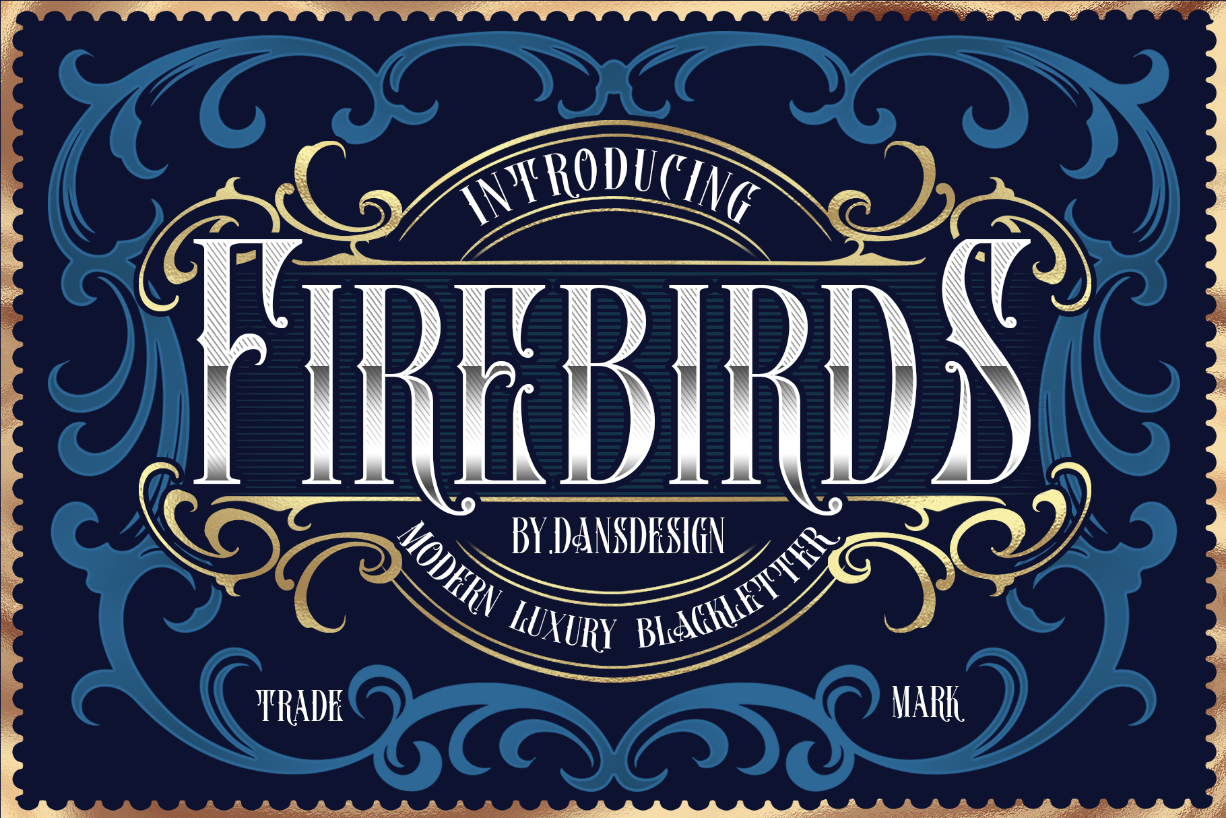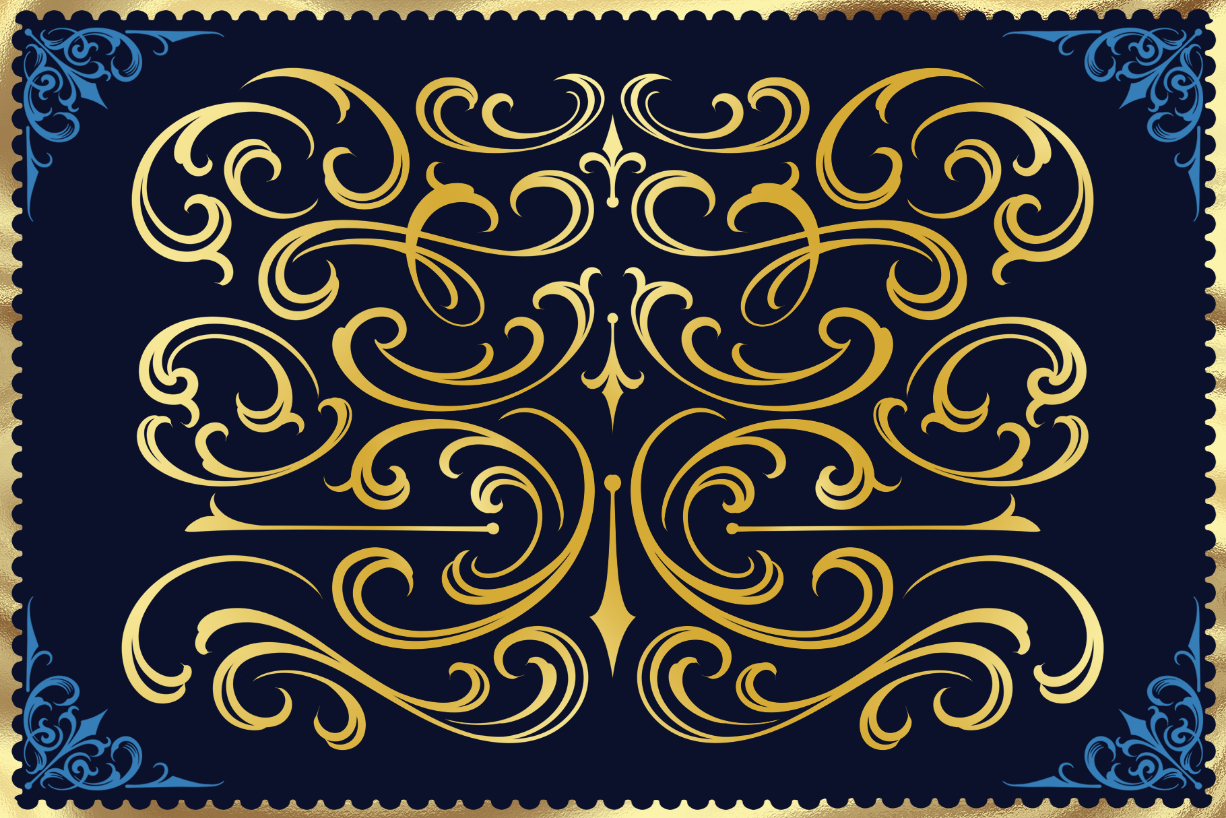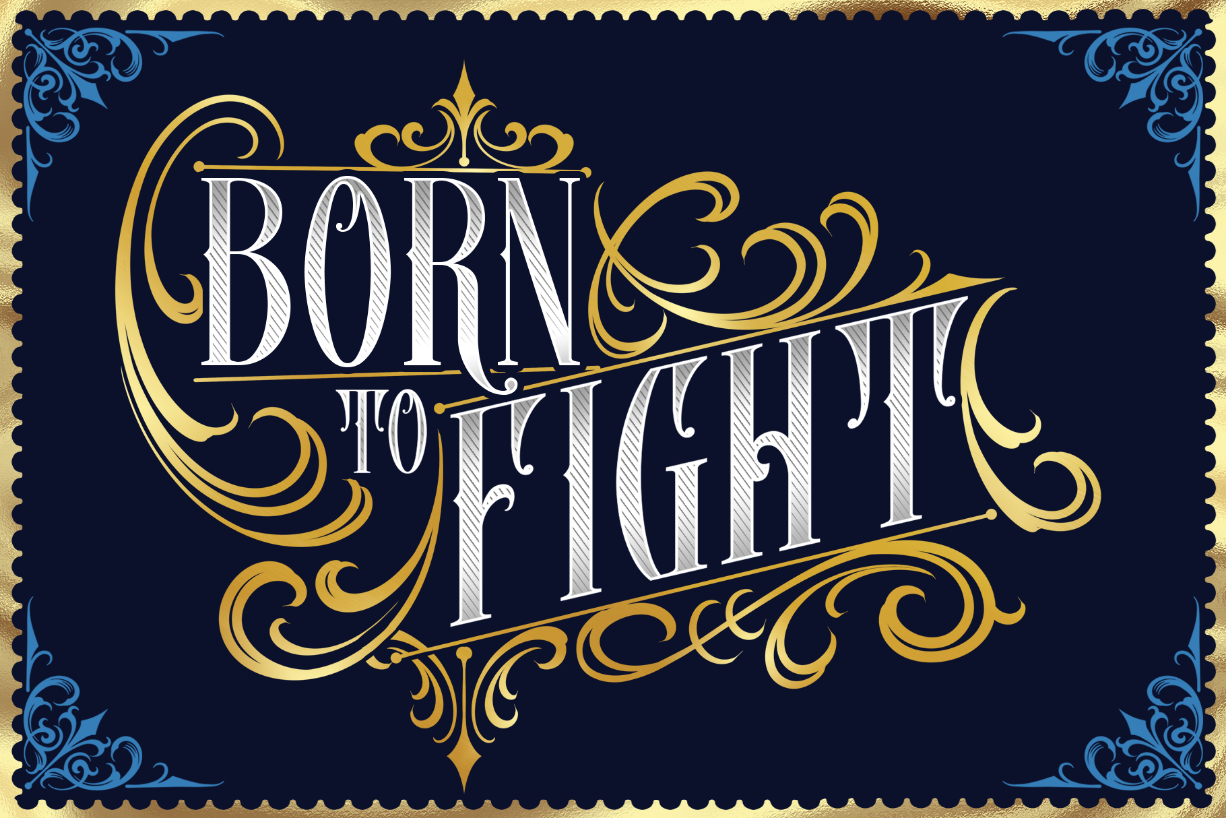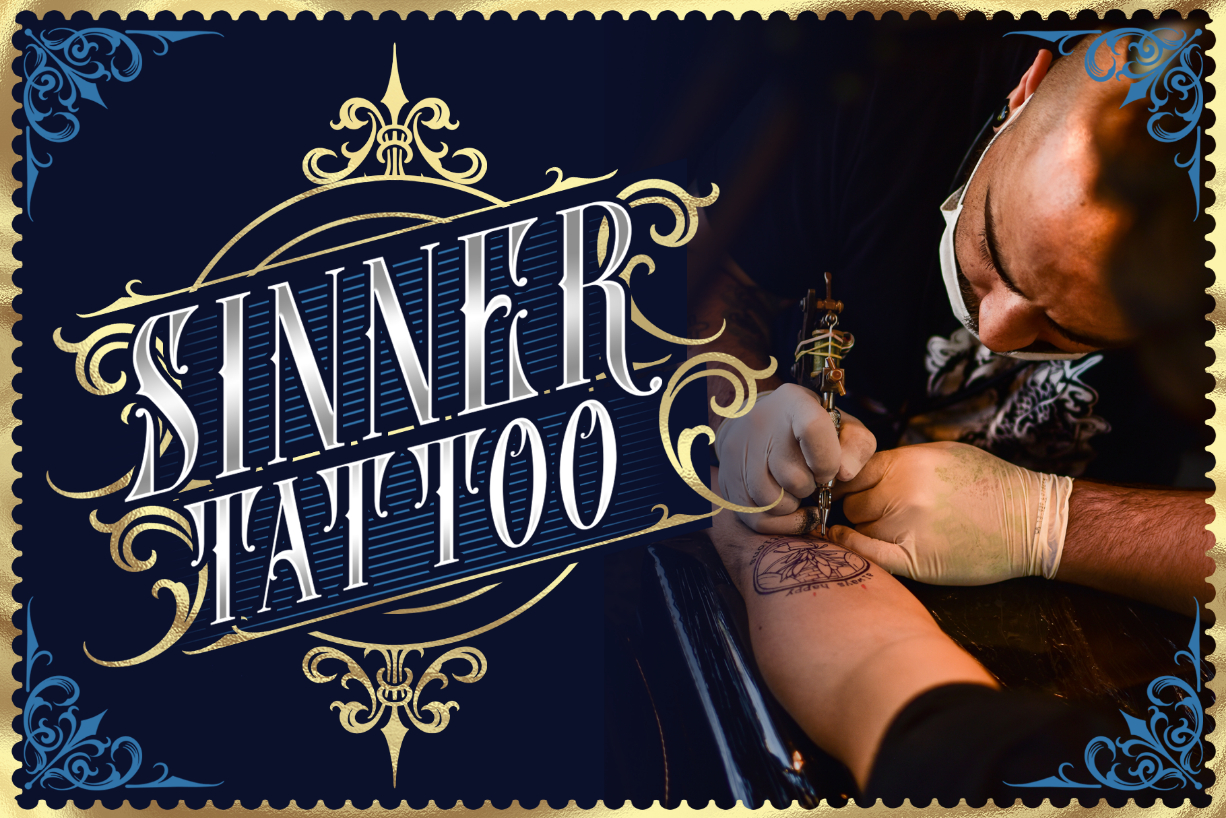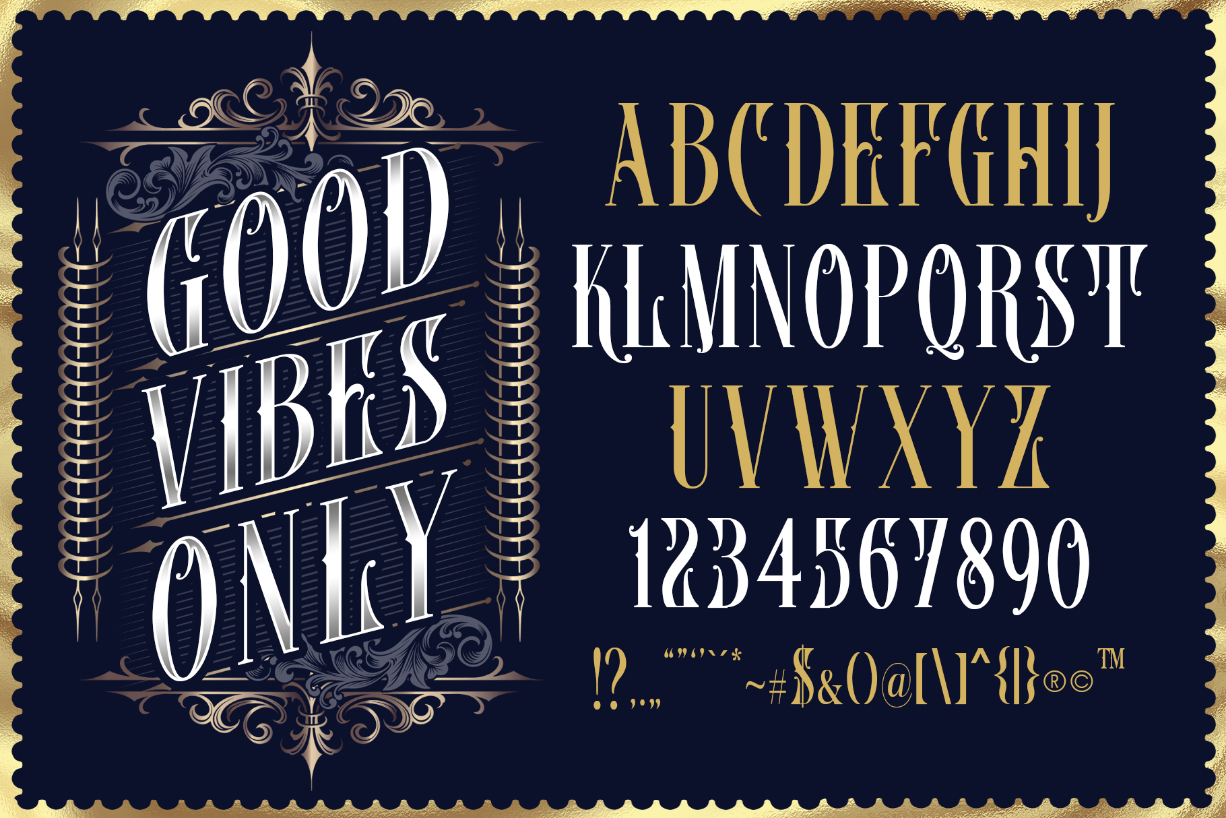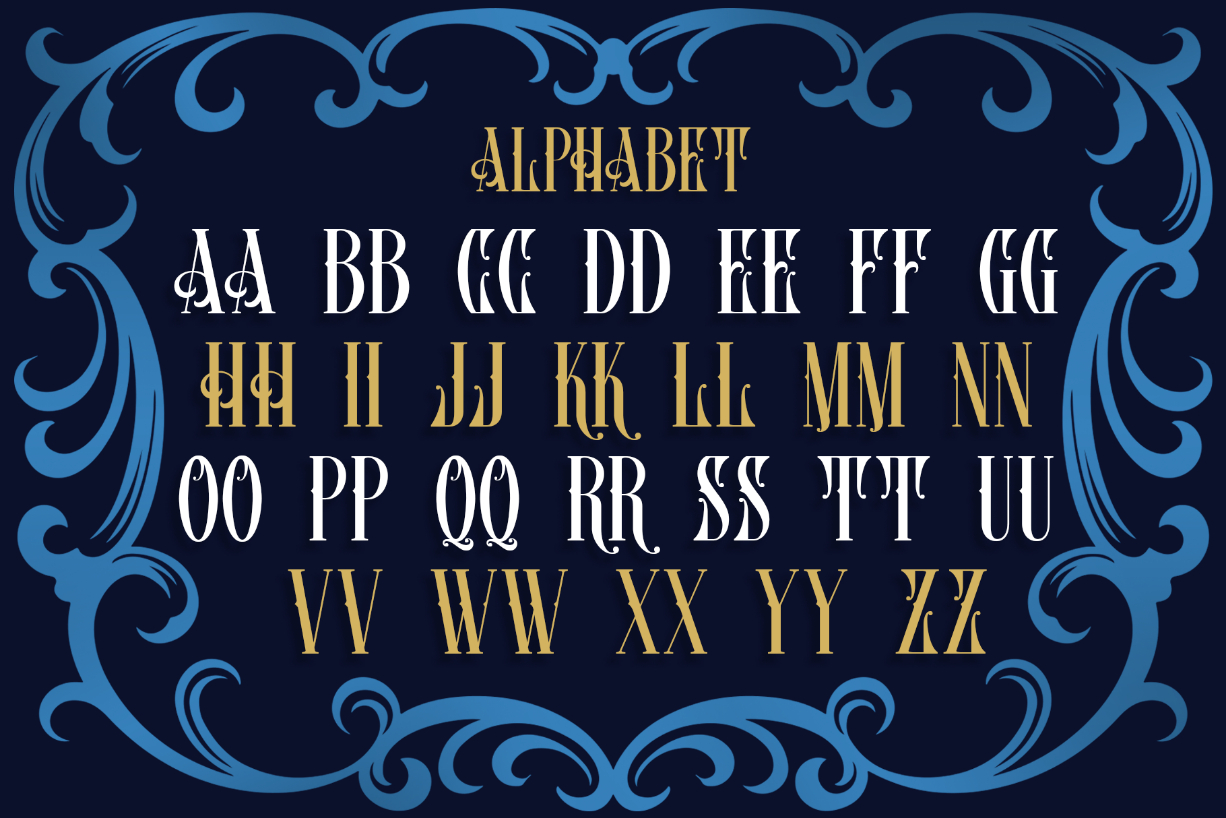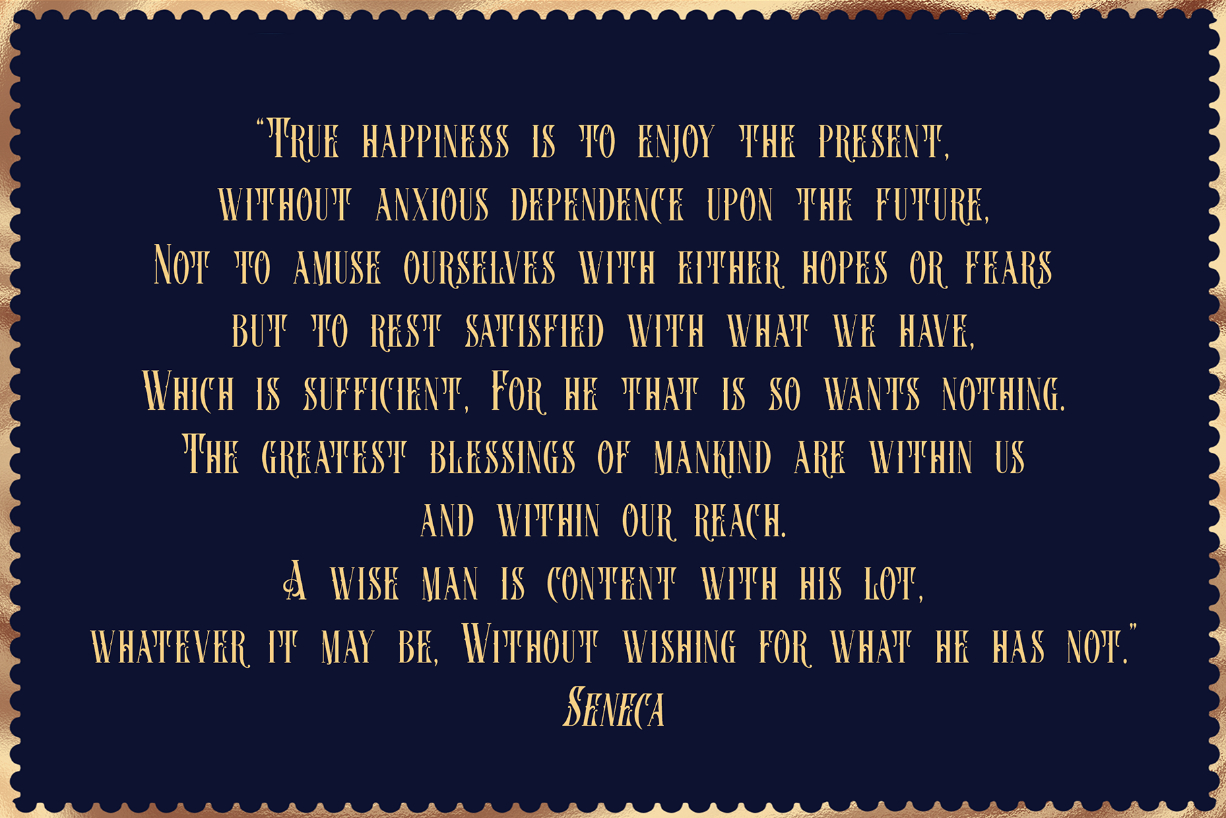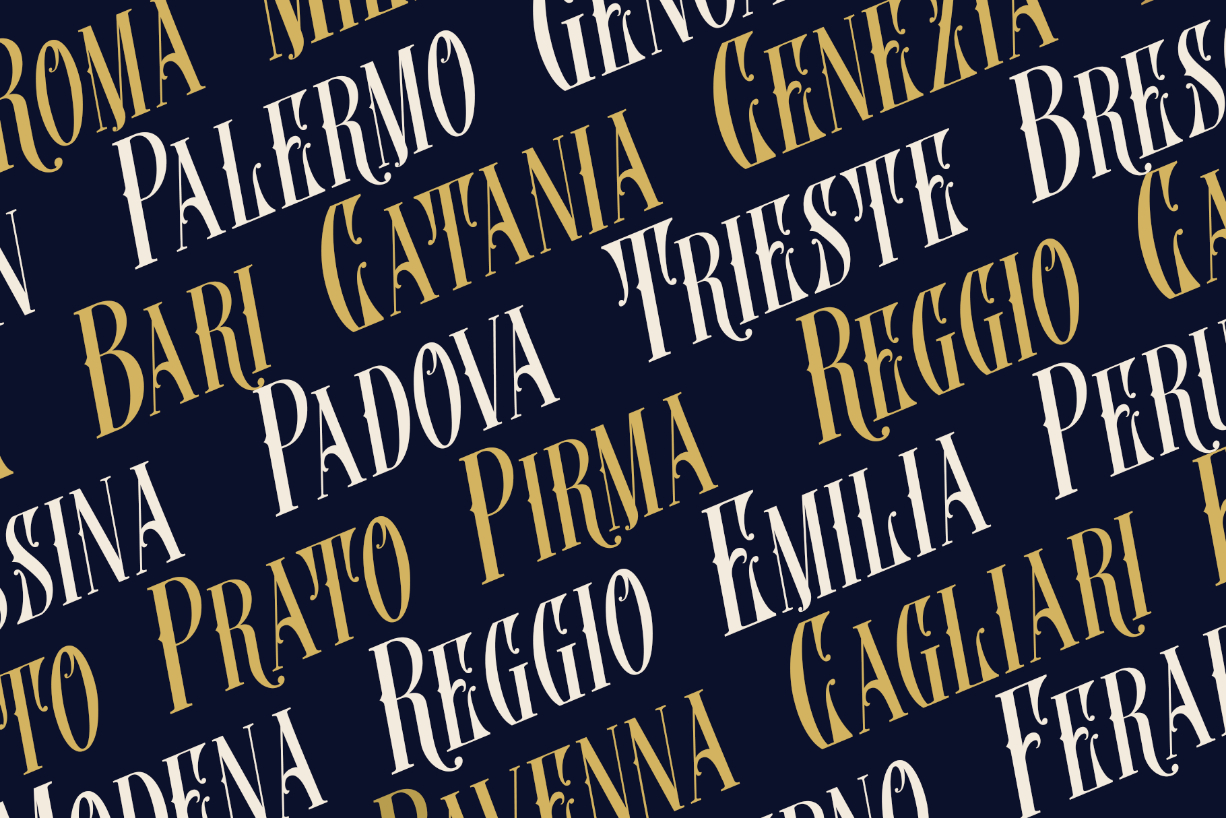
Firebirds Font
Firebirds is an authentic, victorian styled blackletter font. It has a vintage feel, and as a result, it matches a wide variety of designs. Add it confidently to your projects, and you will love the results.